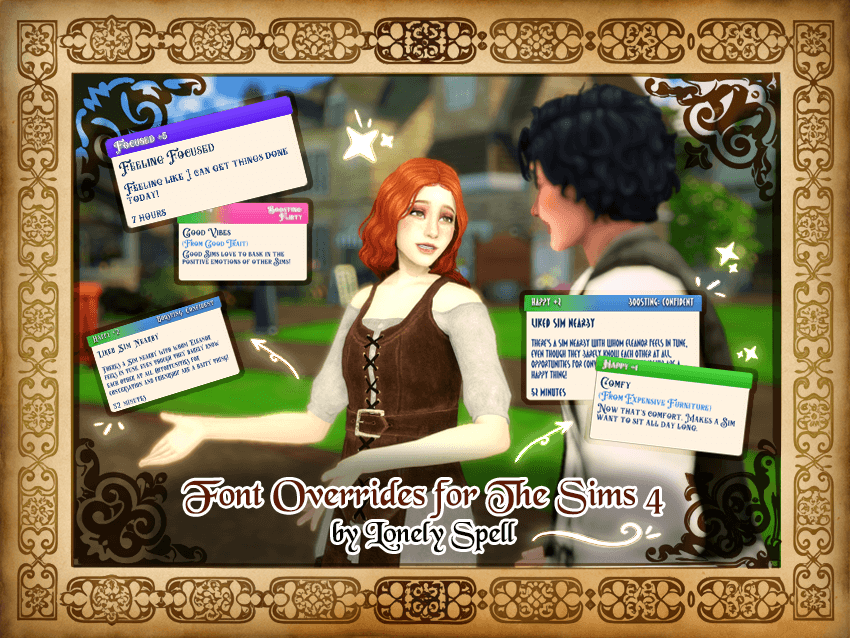
Today I’m beyond excited to share a brand-new Medieval UI Font Pack — six unique font versions you can use to replace the default Sims 4 font and give your game a more immersive, thematic look.
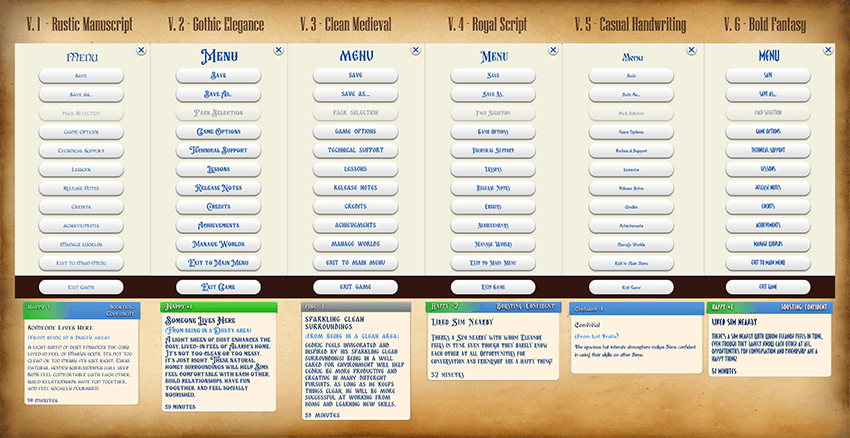
This pack is perfect for medieval, fantasy, roleplay, or aesthetic gameplay, but can also be used with any style you like!
V.1 - Rustic Manuscript Simple readable font with a light handwritten touch. Great for everyday gameplay, easy on the eyes during long sessions.
V.2 - Gothic Elegance Classic Gothic style with decorative capitals. Adds medieval atmosphere while maintaining readability.
V.3 - Clean Medieval Clean geometric font with medieval character. Excellent readability for UI and long text passages.
V.4 - Royal Script Elegant calligraphic font with flourishes. Brings a sense of nobility and ceremony to your game.
V.5 - Casual Handwriting Light handwritten font that looks like quill writing. Creates a cozy personal journal atmosphere.
V.6 - Bold Fantasy Bold expressive font with strong character. Highly readable and stands out in the interface.
V.1, V.3, V.6 - best for extended play sessions (easy to read)
V.2, V.4 - for atmospheric gameplay (beautiful but slightly harder to read)
V.5 - perfect for roleplay and storytelling